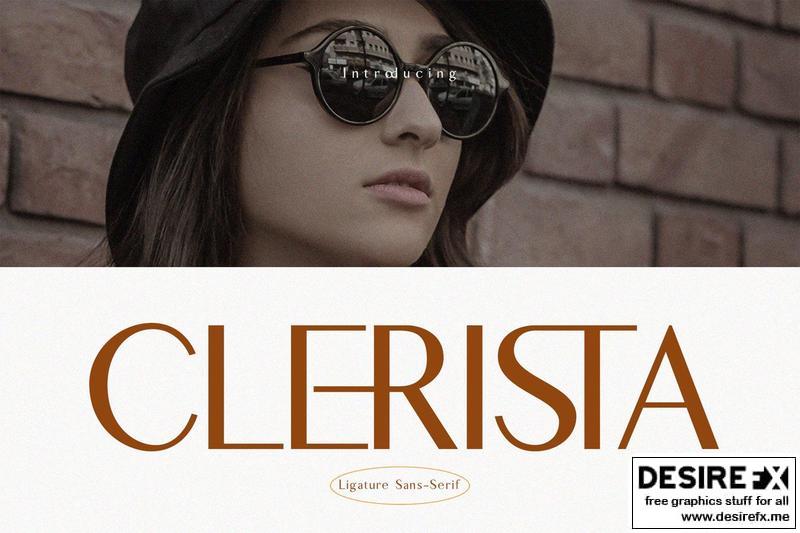
Clerista 4SFXT36
Introducing the new Clerista Ligature Sans-Serif. Clerista is a classic and classy sans font. This font is modern and elegant and works great for logos, magazines, social media. Perfectly matched and ready to go together for your next design! For those of you who need a touch of elegance, stylish, classy, chic and modernity for your designs, this font is made for you!
Clerista is built with OpenType features and includes ligatures, numbers, punctuation, and also supports other languages.